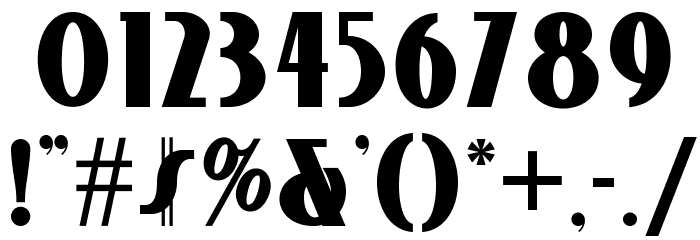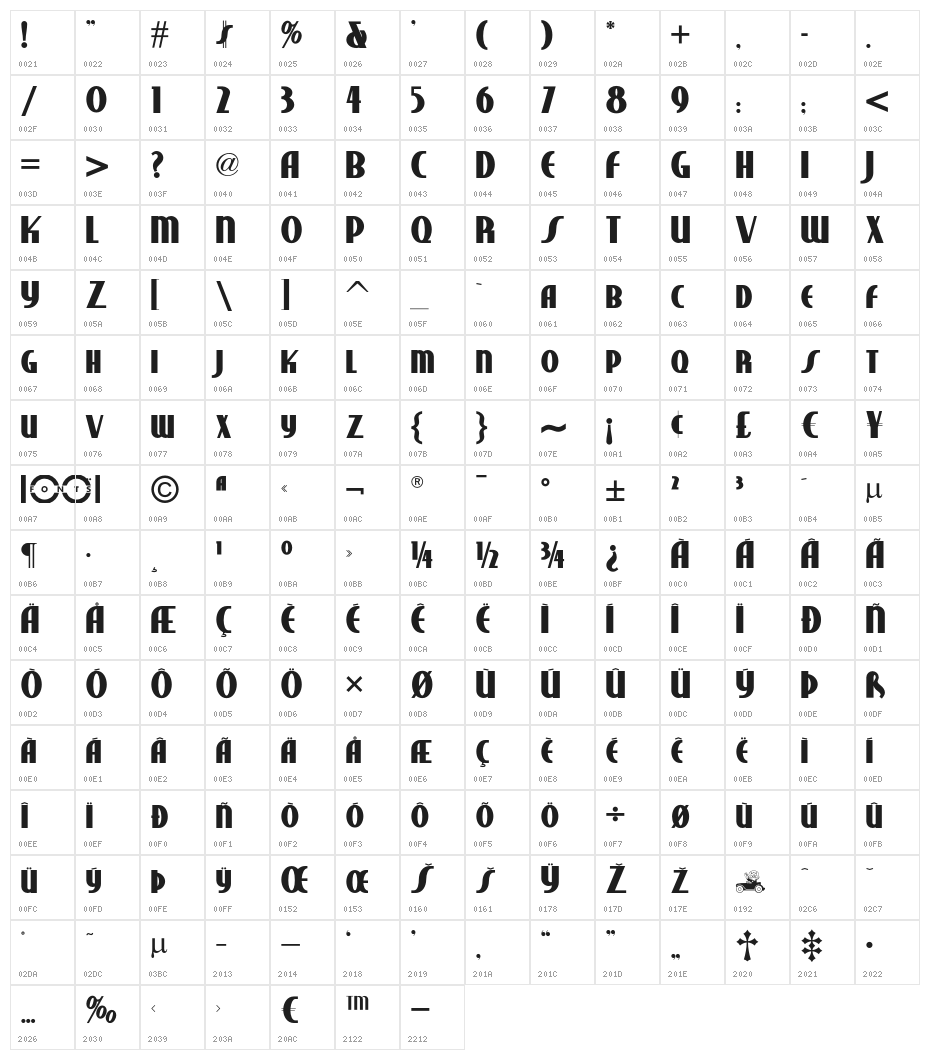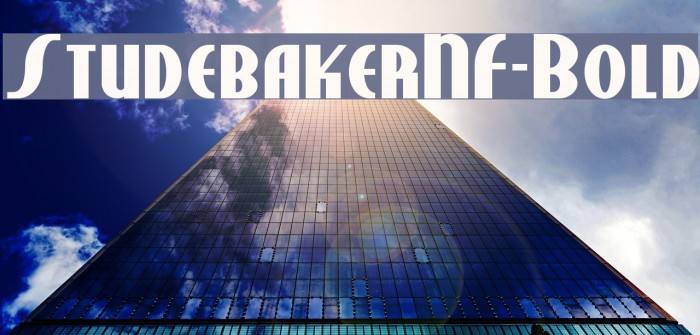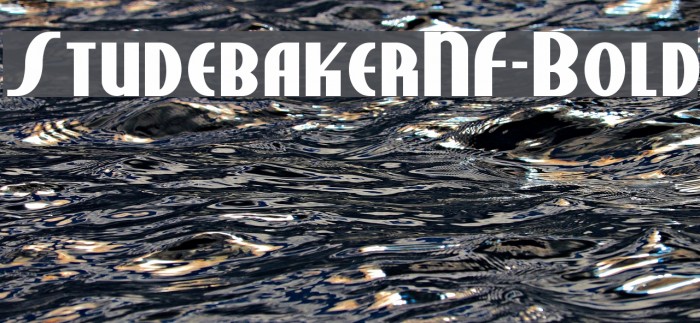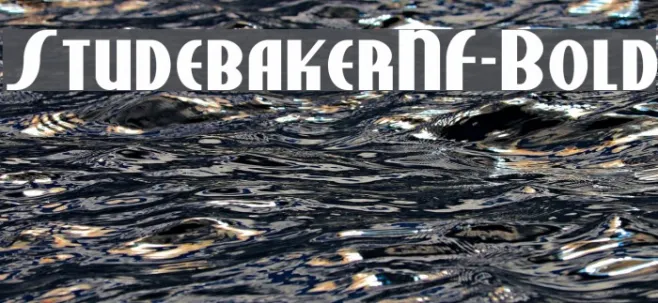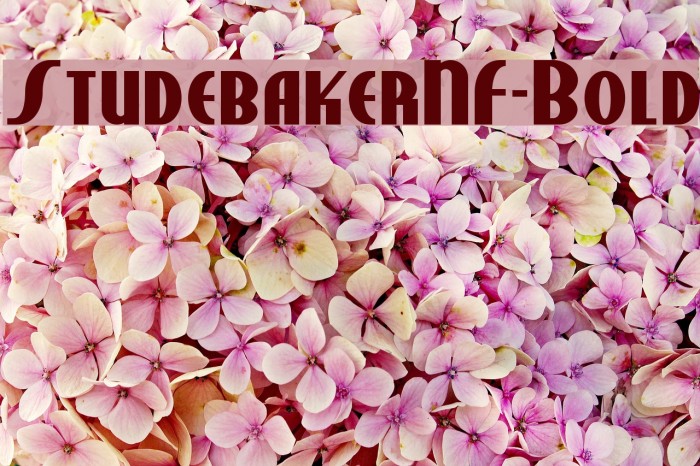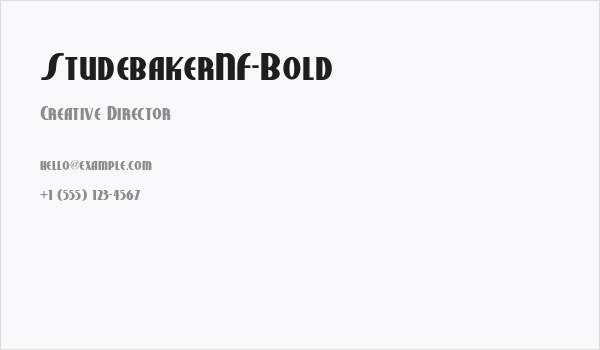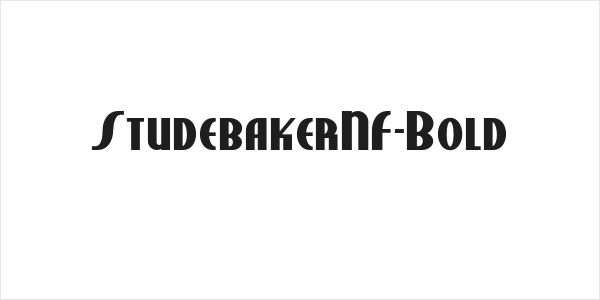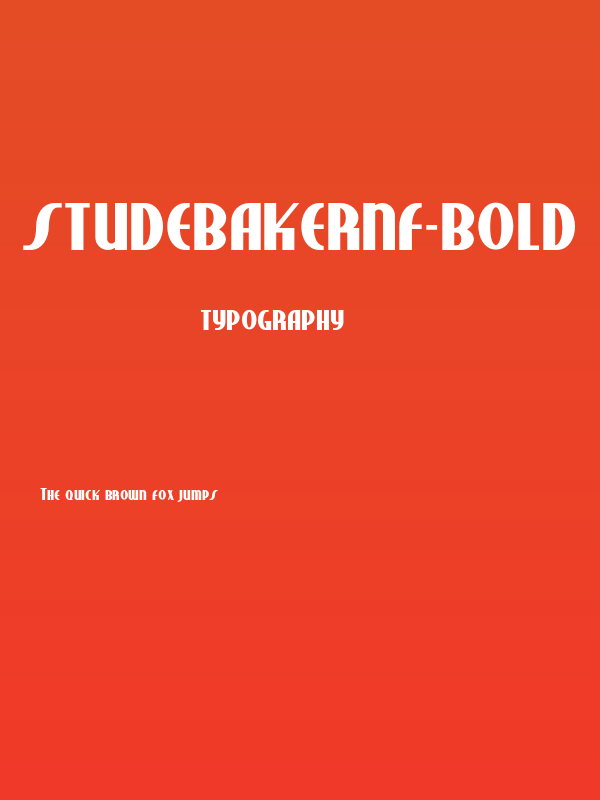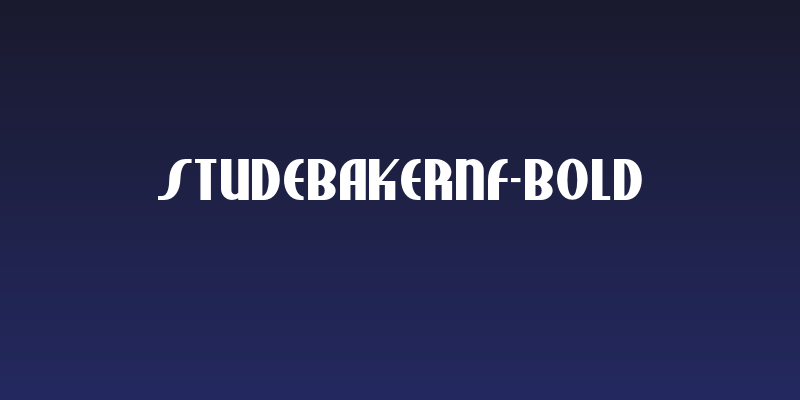
StudebakerNF-Bold Font
StudebakerNF-Bold Description
This font features a bold and striking design with a strong Art Deco influence. The characters are characterized by thick, uniform strokes and geometric shapes, creating a sense of symmetry and balance. The uppercase letters have a distinct, blocky appearance with rounded edges, while the lowercase letters maintain a similar style, ensuring consistency throughout the typeface. The numerals are equally bold and geometric, complementing the overall aesthetic. Special characters are designed with the same attention to detail, making this font versatile for various applications.
Overall StyleVintage
Proposed ProjectsIdeal for retro-themed designs, posters, branding, and headlines that require a bold statement.